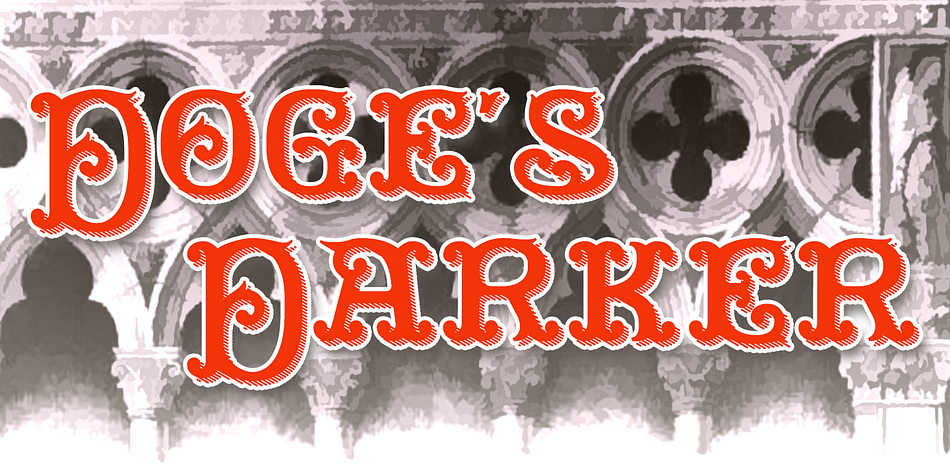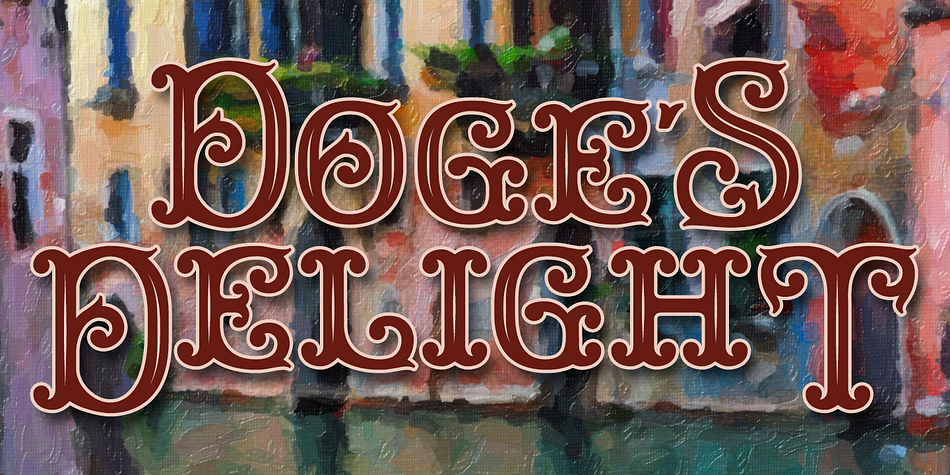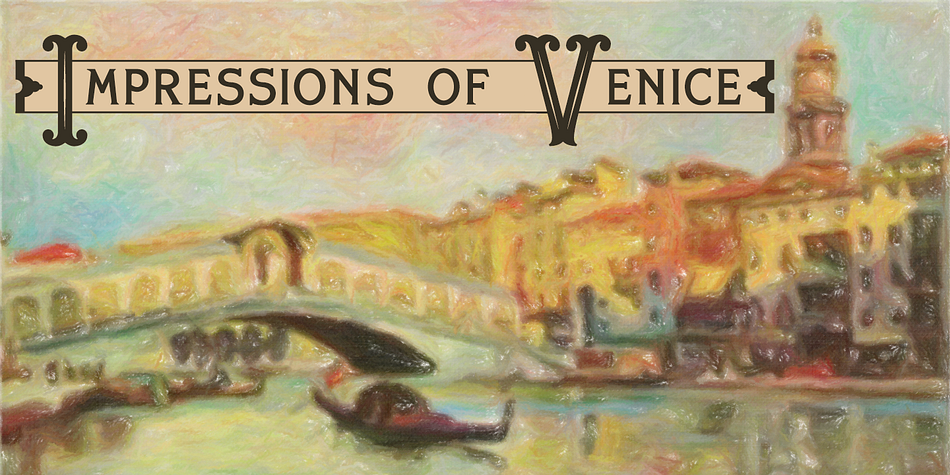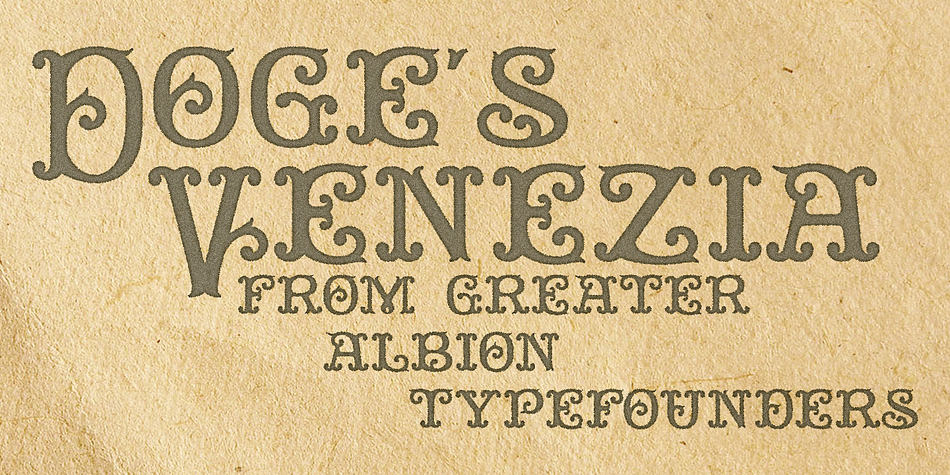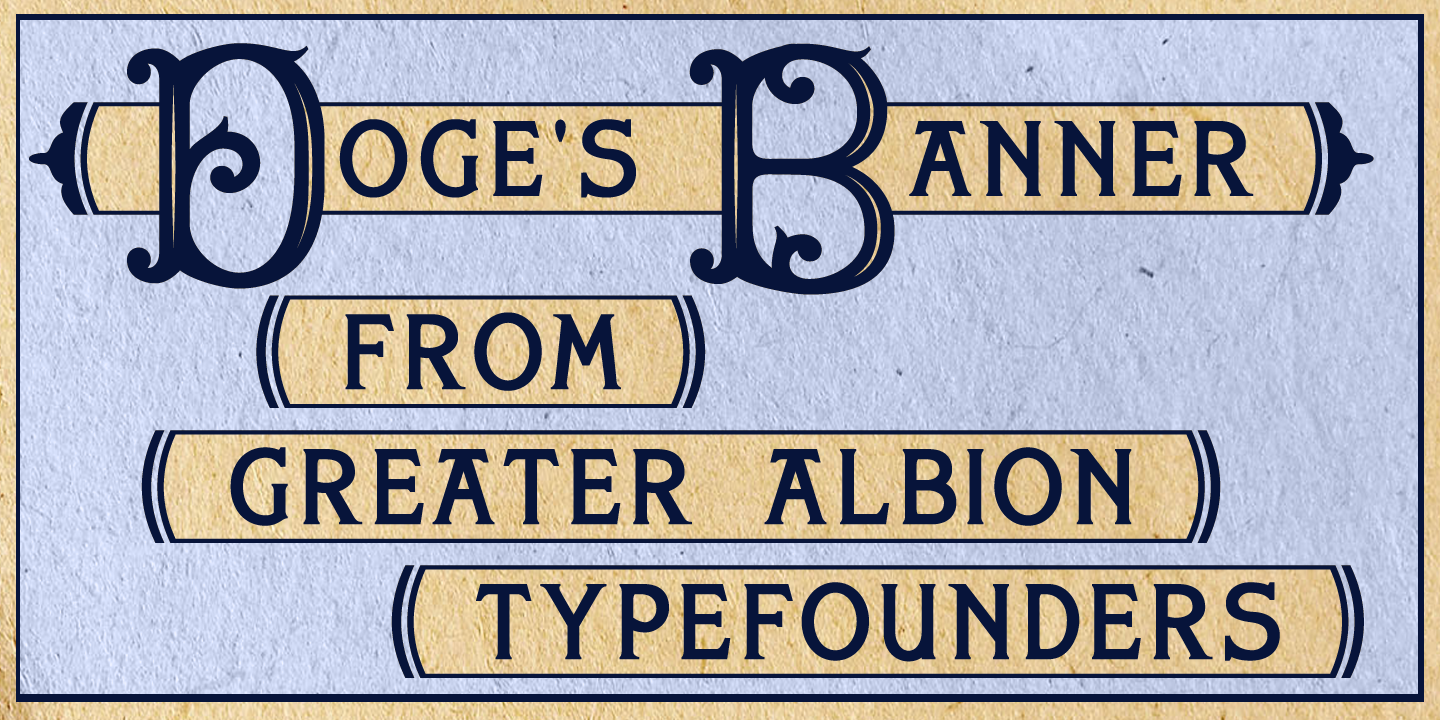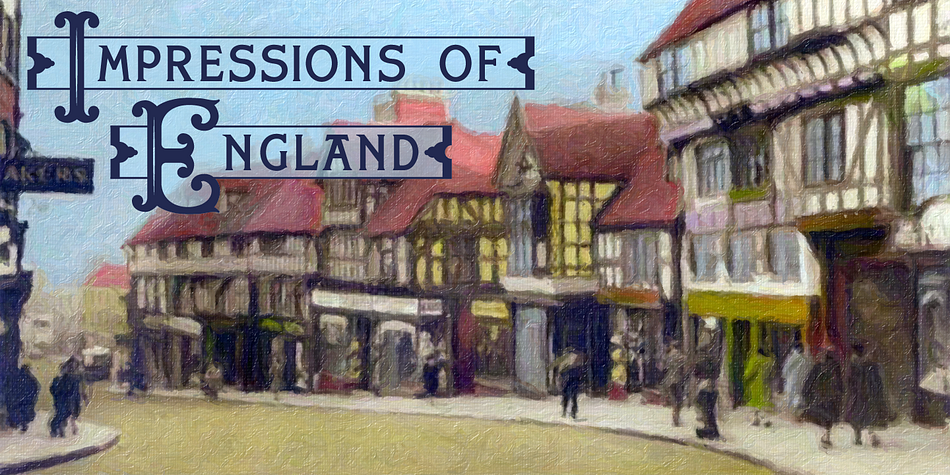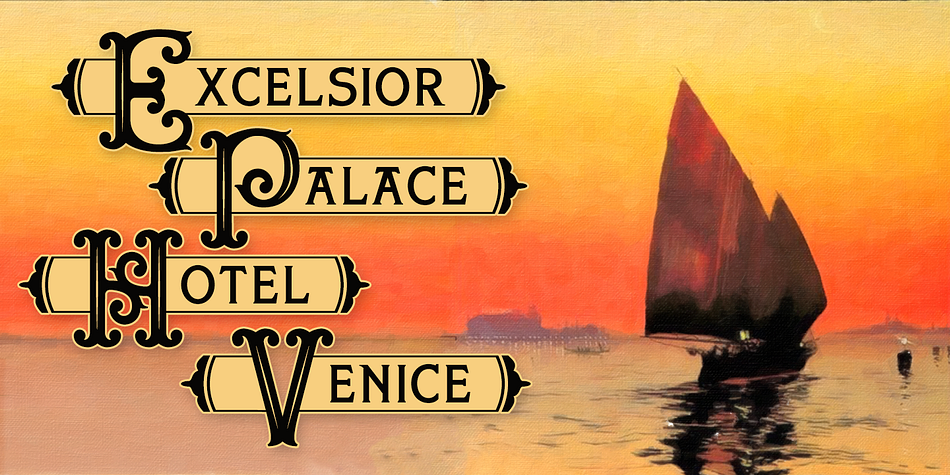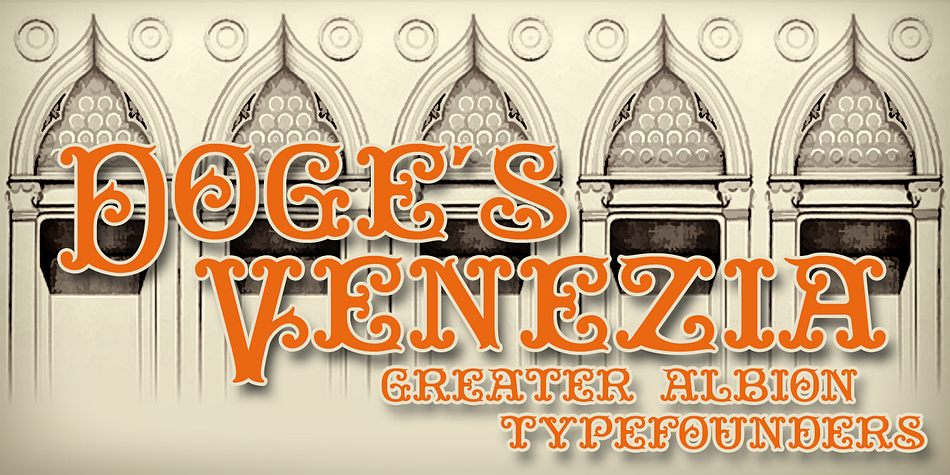
Doge's is a display and western font family. This typeface has four styles and was published by Greater Albion Typefounders.
Doge’s is a set of four typefaces: Doge’s Venezia, Doge’s Delight, Doge’s Darker, and Doge’s Banner. Together they make up a splendid family of Victorian inspired Tuscan faces, allowing for an integrated design approach.